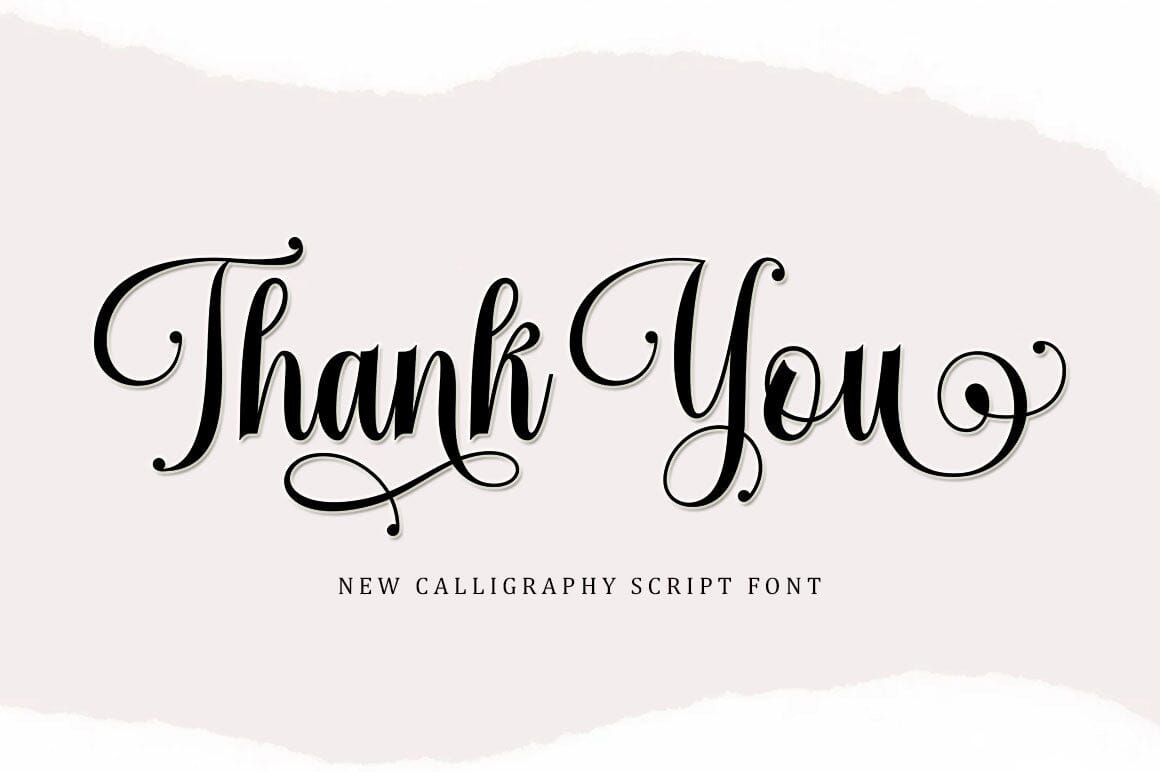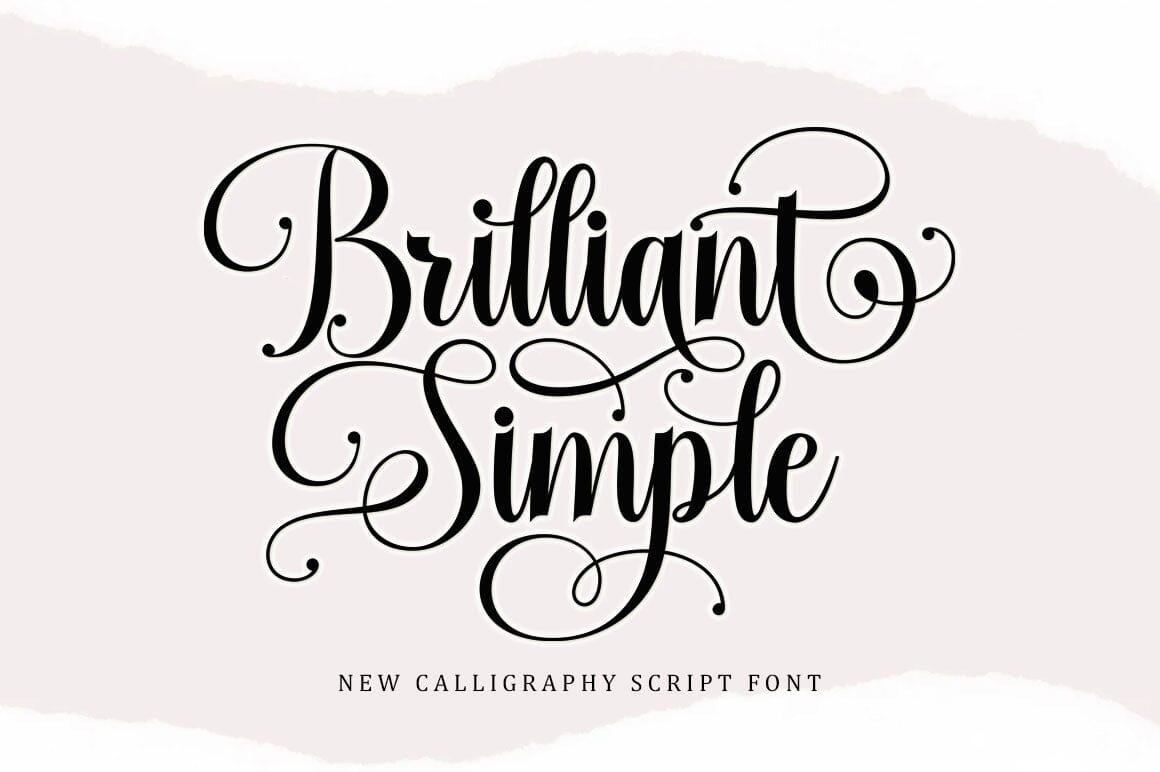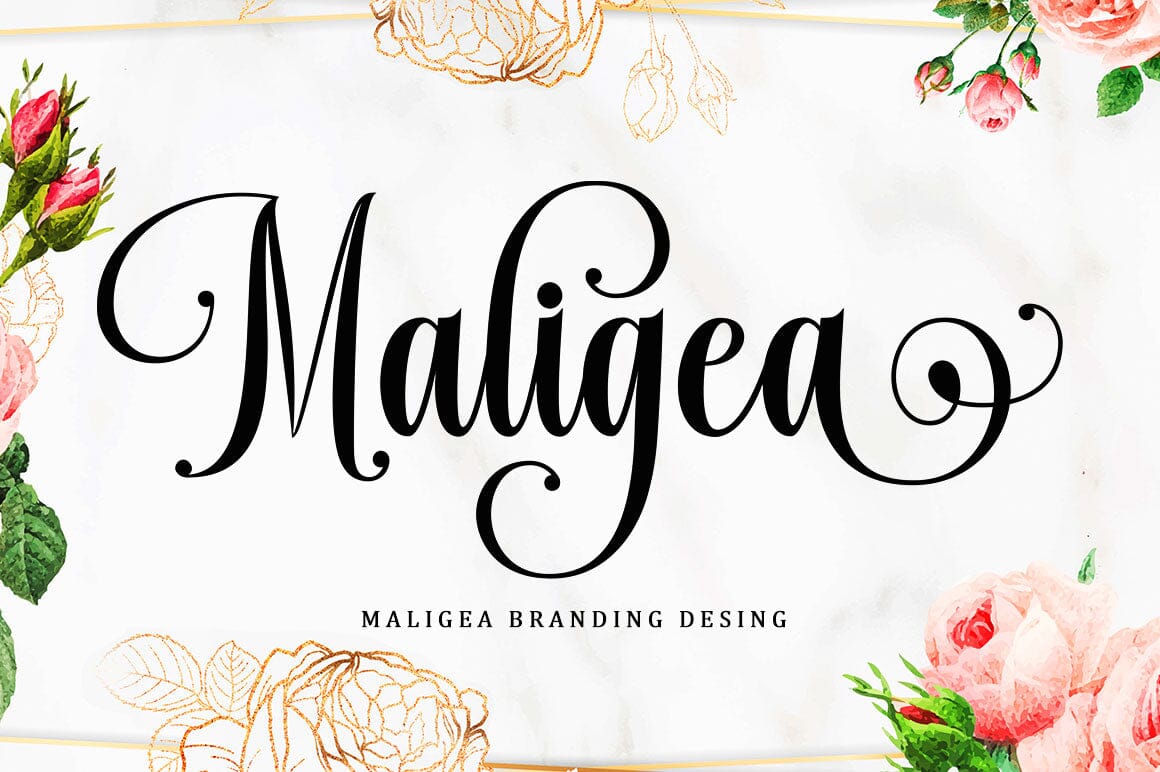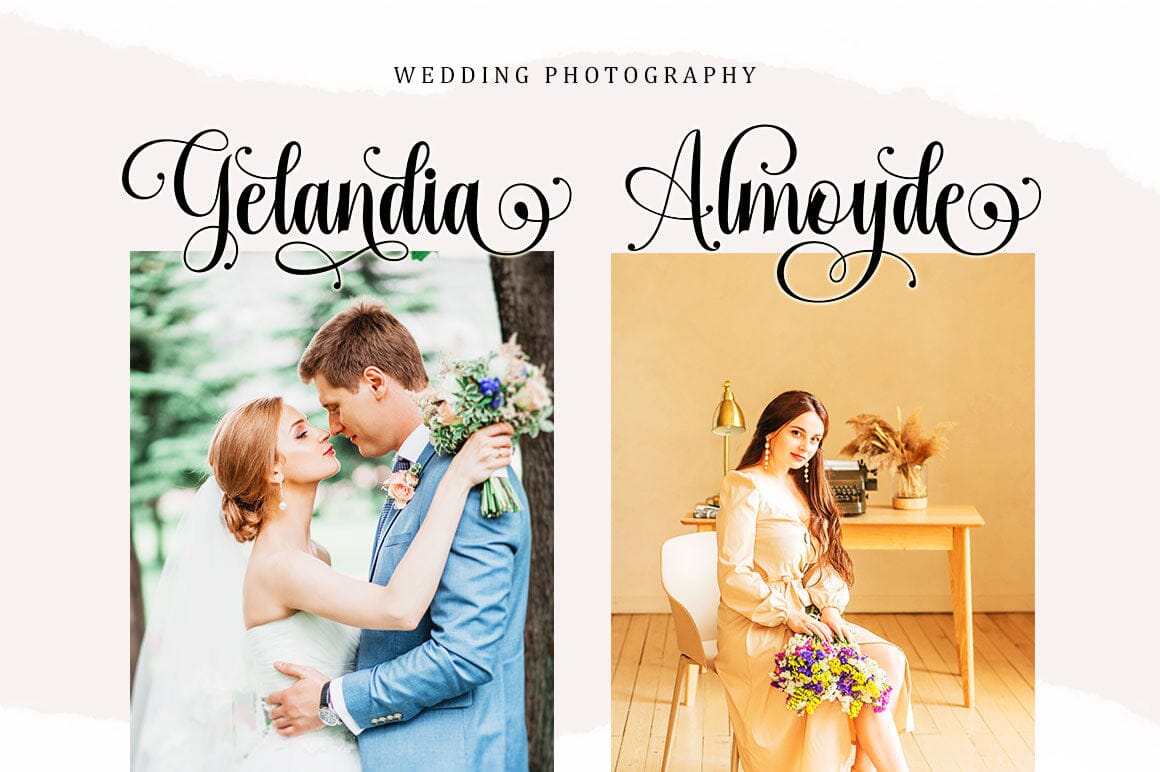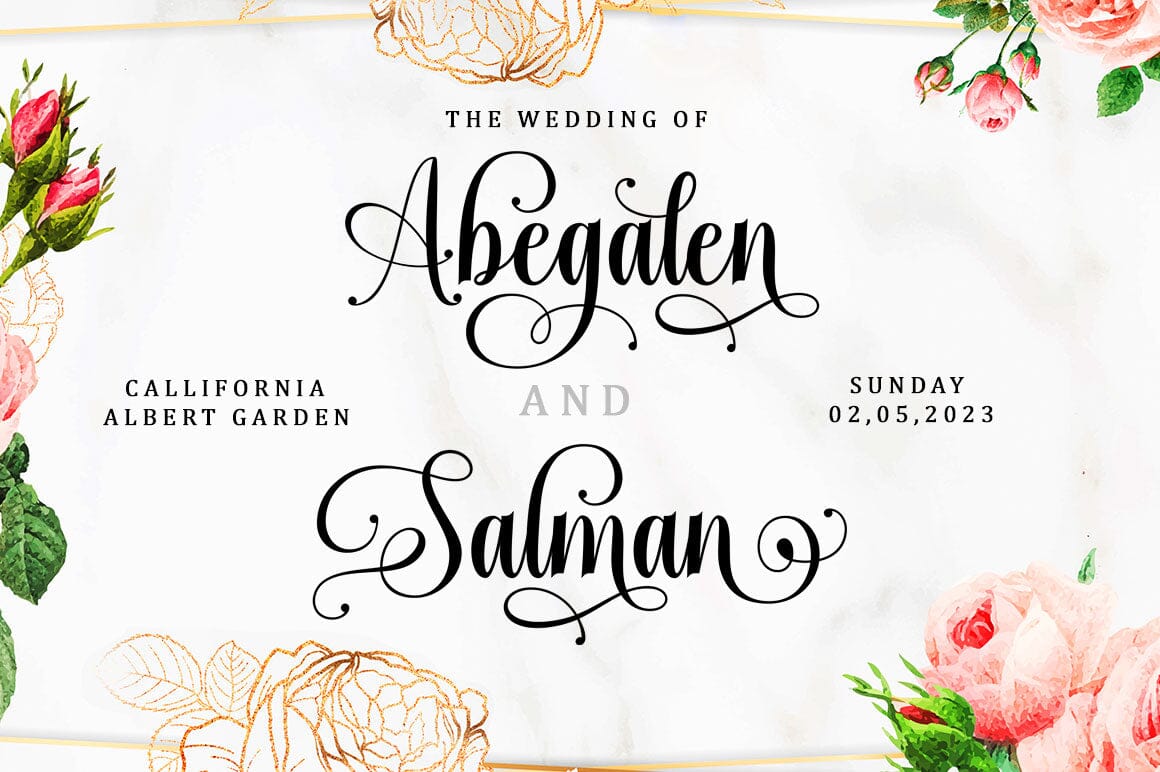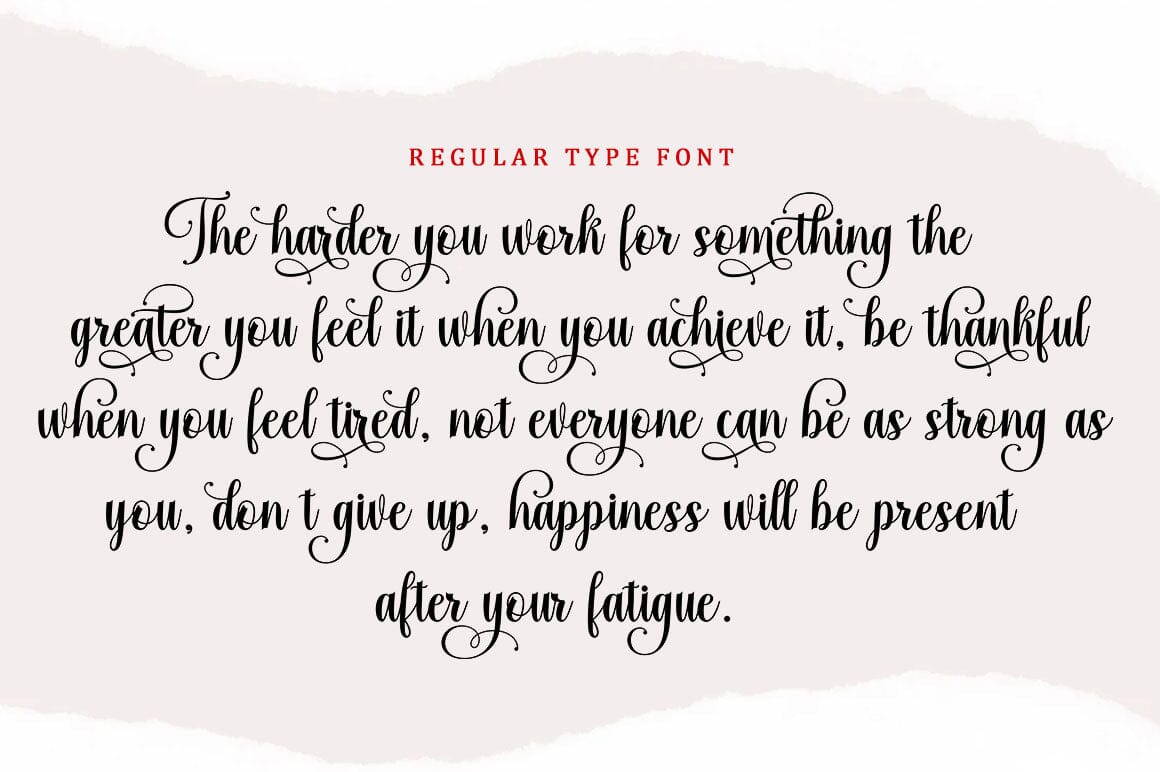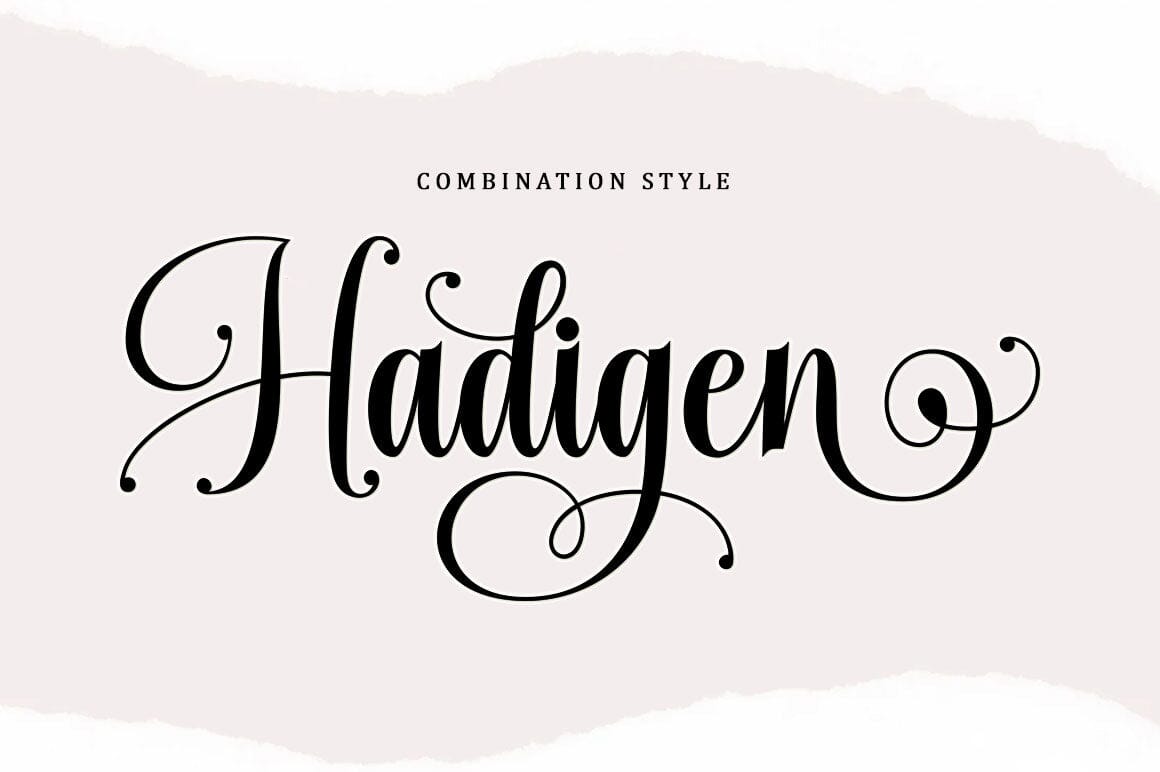
Brilliant Simple Script Font
About Brilliant Simple Script Font
Brilliant Simple is a very Beautiful, elegant and unique handwritten font. Expertly designed to be a true favourite, this font has the potential to take your creative ideas to the highest level! This font is PUA encoded which means you can access all the glyphs and sweeps easily! Brilliant Simple is attractive because it is sleek, clean, feminine, sensual, glamorous, simple and very easy to read, thanks to its many luxurious letter connections. I also offer a decent number of style alternatives for all letters. Classic style is very suitable to be applied in various formal forms such as invitations, labels, restaurant menus, logos, fashion, make up, stationery, novels, magazines, books, greeting/wedding cards, packaging, labels or all kinds of advertisements. for your purposes. . . . . . . Contains full set: -Uppercase -Lowercase -Alternative -Ligatures -Punctuation -Number -Multilingual support. need help or have questions let me know. I’m happy to help. Thanks & Congratulations on the Design.